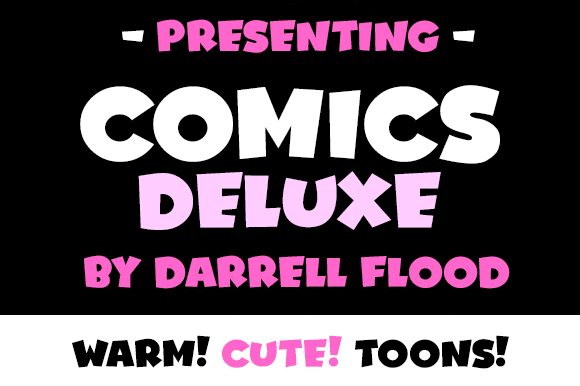
Comics Deluxe Italic
Comics Deluxe Italic is a fun and playful font designed by Darrell Flood, perfect for any project that needs a touch of humor and whimsy. With its bold and semi-expanded lettering, this display font will make your headlines pop and draw attention to your message. The italicized style adds an extra punch of personality, making it ideal for anything from comic books to children's books, posters to greeting cards. Whether you're designing a logo or creating a website, Comics Deluxe Italic is the perfect choice for any project that needs an extra dose of cartoon-inspired charm.